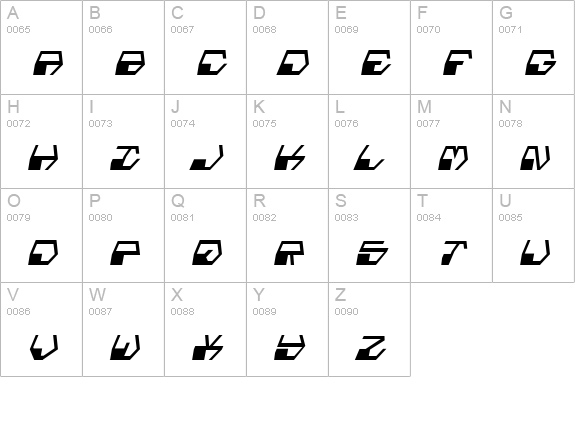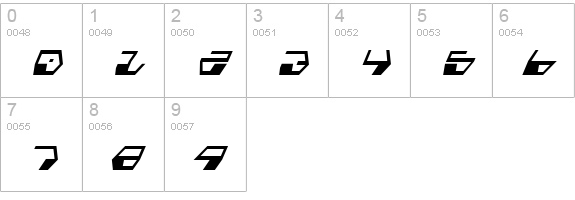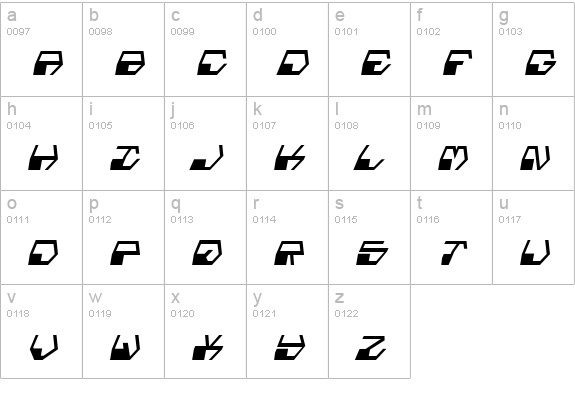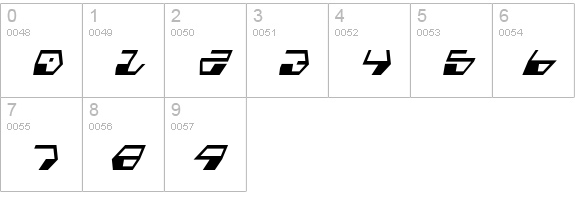
Deranian Condensed Italic is a distinctive, condensed-width, italic variant in the Deranian typeface family \xE2\x80\x94 well suited to design and typography projects.
Deranian Condensed Italic is a sleek and modern font that exudes elegance and sophistication. Its slanted and condensed design adds a touch of flair to any project, making it perfect for titles, headlines, or any text that needs to stand out. The italicized version of Deranian Condensed adds a dynamic and stylish twist to the traditional font, giving your designs a contemporary edge. And the best part? Deranian Condensed Italic is free to download at FontsMarket.com, where you can easily access this unique and versatile font for all your creative endeavors. Don't miss out on the opportunity to enhance your projects with this eye-catching typeface that is sure to make a lasting impression. Download Deranian Condensed Italic today and elevate your designs to the next level!